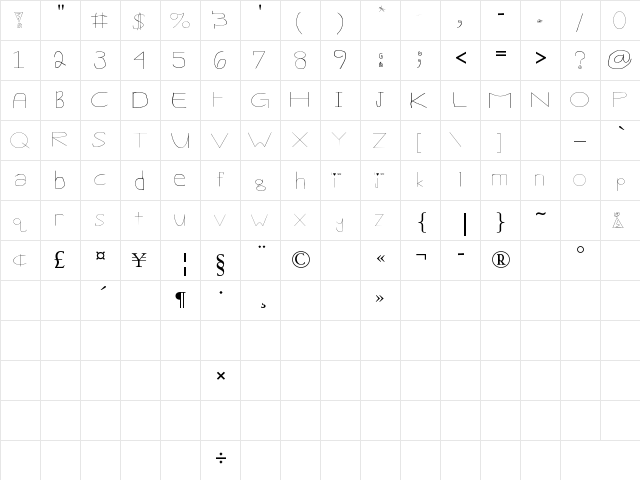
Ellie Grace Color Guard Regular
Design Context for Ellie Grace Color Guard Typeface
Ellie Grace Color Guard offers clean, dependable letterforms without strong stylistic allegiance, making it a practical choice for designers who need flexibility.